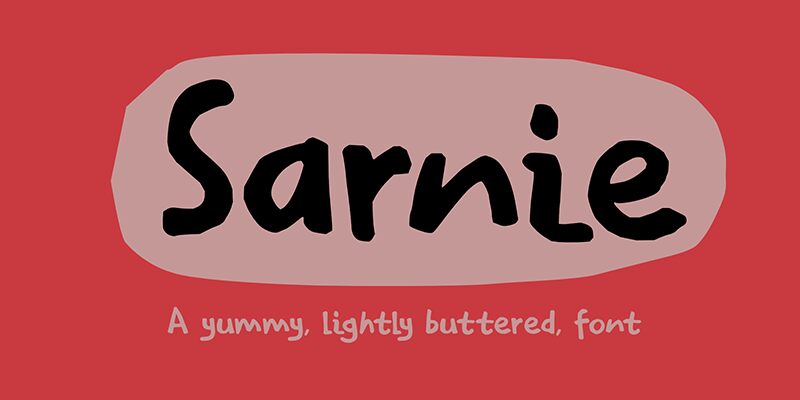
Sarnie font by David Kerkhoff is a free display font with a classic comic style. It has a chunky appearance and a handwritten style noticeable in the shapes of the characters. Contemporary and approachable, this font possesses an organic feel and casual mood that are perfect for various uses.
Create something both fun and memorable with Sarnie that adds elegance to food packaging designs, comic book cover designs, children’s books, media publications for kids, graffiti decor projects, cartoon animation titles etc. The display typeface is also perfect for branding projects like logos of candy brands or funky fashion shops.